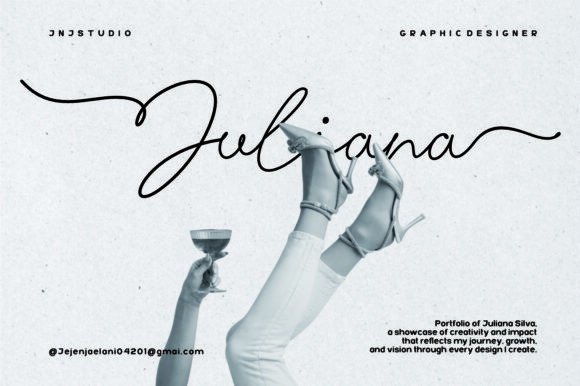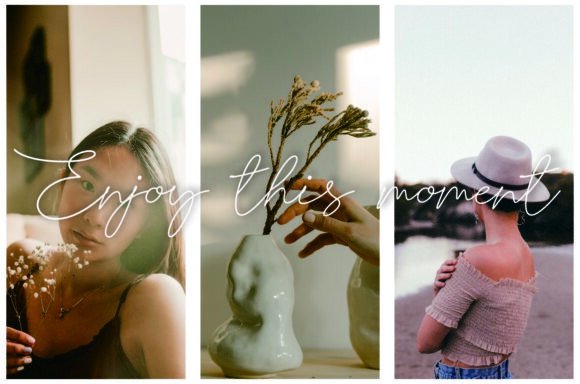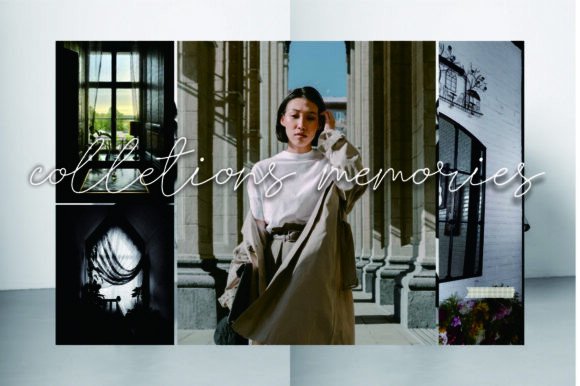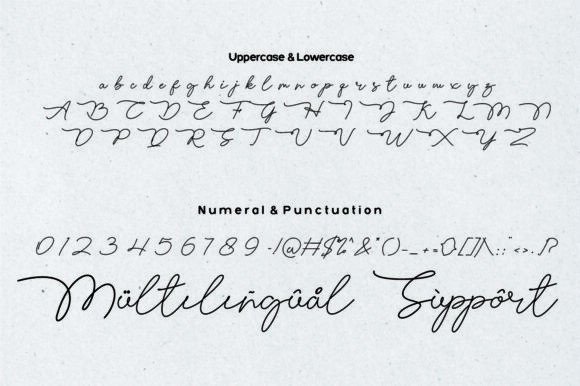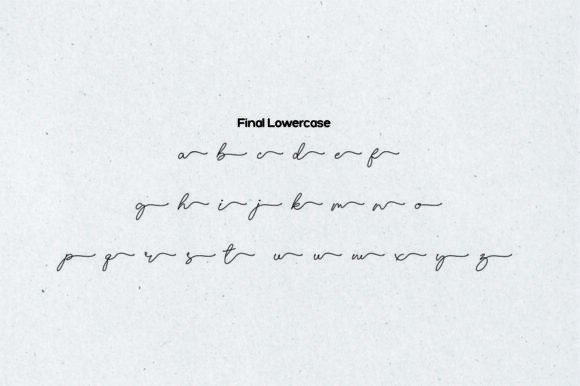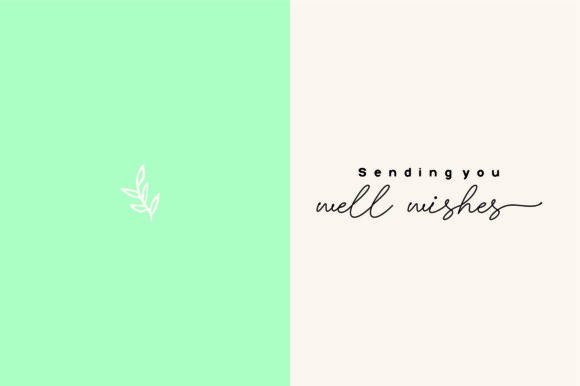
Introduction to Jalry Script Font
Have you ever been stuck trying to find the perfect font for your design project, only to end up with something that feels generic and unpersonal? We’ve all been there. But what if you could add a touch of elegance and sophistication to your work with just a few clicks? Enter Jalry Script Font, a stunning modern script font that’s about to revolutionize your design game.
Whether you’re a seasoned designer or just starting out, Jalry Script Font is a game-changer. Its smooth flowing strokes, refined curves, and balanced rhythm create a stylish yet approachable signature feel that’s perfect for branding, personal logos, fashion labels, and more. And the best part? It’s available for free download, making it an essential design resource for any creative project.
With Jalry Script Font, you can add a touch of high-quality, professional flair to your work, from social media content to photography watermarks and editorial designs. Its organic letterforms bring a warm, human touch that’s sure to leave a lasting impression. So why settle for anything less? Discover the power of Jalry Script Font and take your designs to the next level.
Key Features of Jalry Script Font
- Unique script font style with a transparent background, ideal for use in digital art and graphics.
- Designed with a beautiful, elegant script style, suitable for use in various creative projects, including invitations, posters, and more.
- Perfect for designers, artists, and writers looking for a unique and high-quality design resource to elevate their creative projects.
Honest Review: Jalry Script Font
I recently had the chance to work with the Jalry Script Font, and I must say it’s a great addition to any designer’s library. It’s a high-quality, free download that can add a touch of elegance to your creative projects.
What works well: ✨ The font is incredibly versatile and can be used for a wide range of projects, from wedding invitations to product labels. The transparent background makes it easy to customize and combine with other design elements. The font’s curves and lines are smooth and well-defined, making it perfect for titles and headings.
However, I did encounter a few limitations: ⚠️ The font doesn’t come with a lot of variation options, which can make it feel a bit repetitive. Additionally, some of the characters may not be as detailed as I would have liked.
Overall, I’m impressed with the Jalry Script Font. It’s a great design resource that can add a touch of sophistication to your designs. While it may not be perfect, it’s definitely worth checking out for any designers looking for a high-quality, free script font.
The Jalry Script Font is perfect for creating beautiful, eye-catching titles and headings for your design projects. You can also use it to create a transparent background effect by using the font’s transparent background feature.